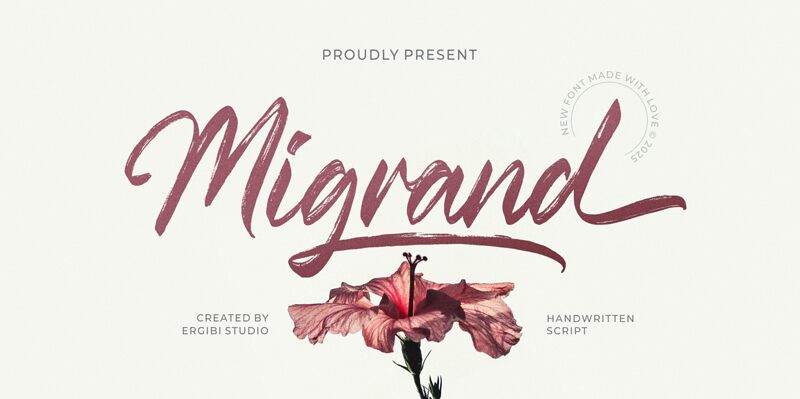
Migrand
Migrand font by Riyadh Rahman is a brush script font that balances artistic flair with modern elegance. Its expressive style, casual sophistication, and cursive influence bring an eye-catching yet elegant characteristic to texts. Appropriate to create playful headings or readable body texts, this condensed font is capable of serving all your visual communication needs exceptionally.
This carefully-constructed resource will do a great job in flyer design, magazine cover titles, posters, brochures about art-related topics and industries. Use the free typeface in branding design and package innovative visual identities for businesses and their products whether they’re related to the theme or not.